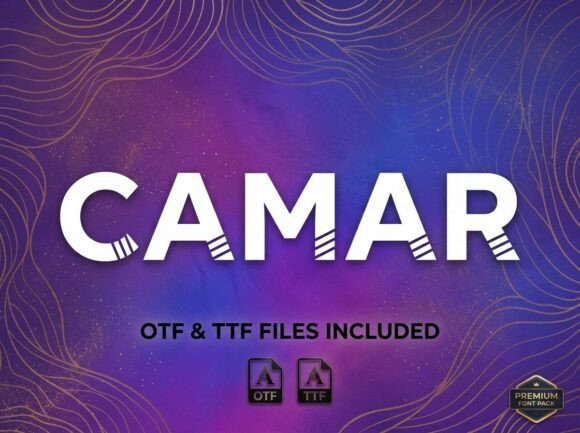
It’s that magical moment when a spark of inspiration hits, and your ideas start flowing like a river. You’re brainstorming a new project, and the words begin to dance in your mind. You’re envisioning the perfect font to make your design stand out, something that screams ‘I’m here, and I’m making a statement!’ That’s where the Camar Font comes in – a stunning decorative display font designed to be the center of attention.
This versatile font is perfect for creators who want to break away from the ordinary and make a lasting impression. Whether you’re crafting bold headlines, artistic logos, or creative packaging, the Camar Font is sure to deliver a professional and polished finish. With its unique artistic elements and strong visual personality, it’s a valuable addition to any designer’s toolkit.
- Unique Characteristics: Camar Font features a unique blend of modern and vintage elements, with a distinctive flair that sets it apart from other fonts in its category.
Camar Font Review
Camar Font is a clean, modern sans-serif font that has caught my attention. Here’s what works well: ✨ It’s highly legible, making it perfect for body text. ✨ The font is well-balanced, with a nice contrast between thick and thin lines. ✨ It’s highly versatile, suitable for a wide range of design projects, from digital interfaces to print materials.
However, there are some limitations to consider: ⚠️ The font lacks personality and uniqueness, which might make it blend in with other popular sans-serif fonts. ⚠️ The font’s x-height is a bit small, which can make it difficult to read at smaller sizes. ⚠️ There’s limited language support, which might be a concern for designers working on international projects.
Overall, Camar Font is a solid choice for designers looking for a clean and modern sans-serif font. While it may not stand out in a crowded market, it’s a reliable option that’s easy to work with. If you’re looking for a font that’s highly legible and versatile, Camar Font is definitely worth considering.
- Highly legible and well-balanced
- Suitable for a wide range of design projects
- Available in multiple weights and styles
- Not ideal for projects that require a unique or distinctive font
Camar Font is a versatile font that can be used in a variety of applications, including:
- Logo design
- Branding materials
- Print materials
- Web design